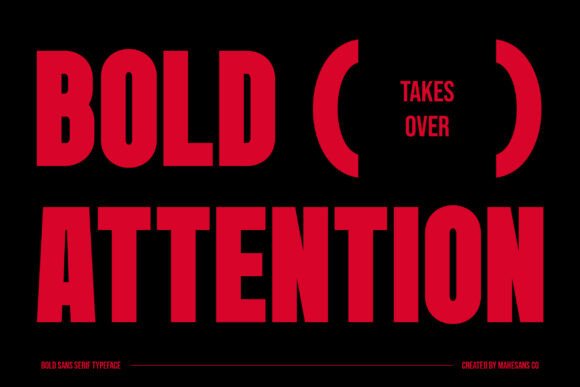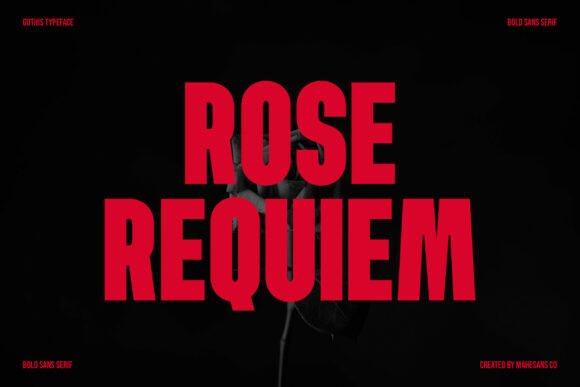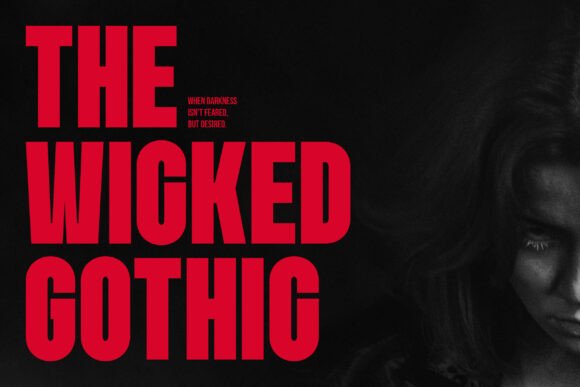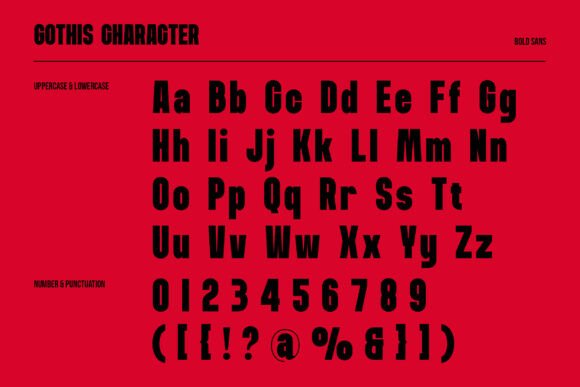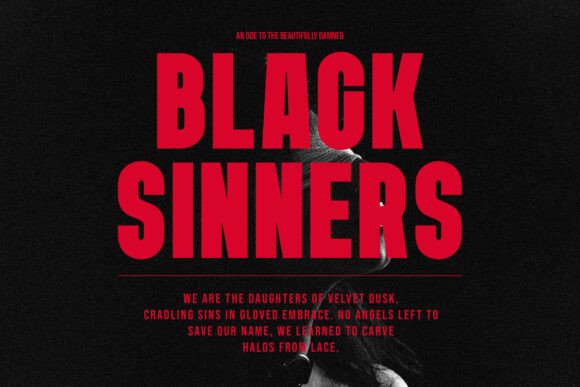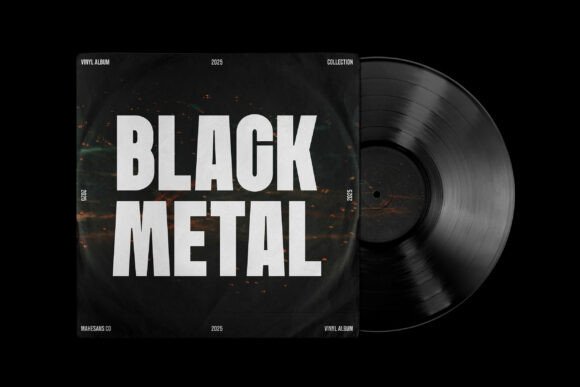
Introducing GOTHIS Font: The Bold Sans Serif Typeface for Impactful Design
In the world of typography, a good font can make all the difference in creating a lasting impression. For designers and crafters looking for a bold and confident typeface, GOTHIS Font is an excellent choice. This sans serif font combines strong geometric precision with the raw edge of industrial design, making it perfect for a wide range of applications, from branding and album covers to editorial headlines, posters, and modern packaging.
The Inspiration Behind GOTHIS
GOTHIS Font draws inspiration from the grit of vintage vinyl sleeves and the clarity of minimalist design. The font’s robust letterforms and versatile character set make it adaptable to both retro and contemporary aesthetics. This unique blend of old and new design elements allows GOTHIS to bring a bold, confident presence to every project.
Key Features of GOTHIS Font
- Bold and Impactful Typography: GOTHIS Font is built to command attention with its clean, solid, and impactful typography.
- Geometric Precision: The font’s strong geometric precision gives it a modern and sleek look.
- Industrial Edge: The raw edge of industrial design adds a touch of grit and ruggedness to the font.
- Versatile Character Set: GOTHIS features a versatile character set that adapts effortlessly to both retro and contemporary aesthetics.
Use Cases for GOTHIS Font
GOTHIS Font is an excellent choice for a wide range of design applications, including:
- Branding: Create a lasting impression with bold and confident typography that reflects your brand’s personality.
- Album Covers: Add a touch of nostalgia and grit to your album covers with GOTHIS’s retro-inspired design.
- Editorial Headlines: Make your headlines stand out with GOTHIS’s bold and impactful typography.
- Posters: Create eye-catching posters that demand attention with GOTHIS’s clean and solid design.
- Modern Packaging: Add a touch of modernity and sophistication to your packaging with GOTHIS’s sleek and geometric design.
Why Choose GOTHIS Font?
With so many fonts available, why choose GOTHIS? Here are just a few reasons:
- Unique Design: GOTHIS Font offers a unique blend of geometric precision and industrial edge that sets it apart from other fonts.
- Versatility: The font’s versatile character set makes it adaptable to a wide range of design applications and aesthetics.
- Impactful Typography: GOTHIS Font is designed to command attention and make a lasting impression.
In conclusion, GOTHIS Font is an excellent choice for designers and crafters looking for a bold and confident typeface. With its unique blend of geometric precision and industrial edge, GOTHIS is perfect for a wide range of design applications. Whether you’re crafting a nostalgic look or a striking, modern composition, GOTHIS brings a bold, confident presence to every project.